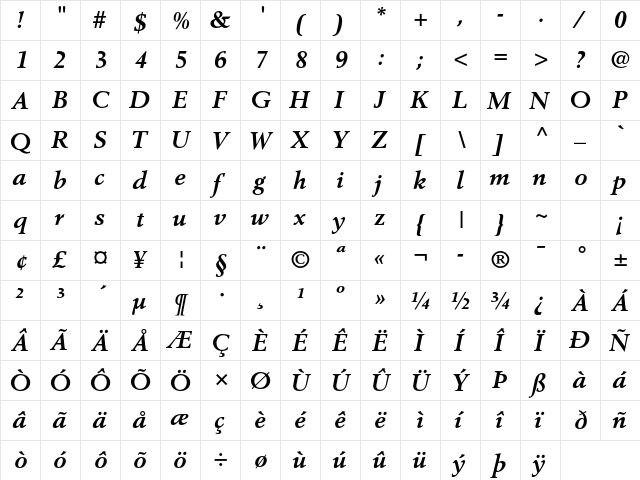
Berling LT Std Bold Italic
Bold Italic ·  Karl-Erik Forsberg ·
DesignerKarl-Erik Forsberg
Design Context for Berling LT Std Typeface
Berling LT Std offers clean, dependable letterforms without strong stylistic allegiance, making it a practical choice for designers who need flexibility. The dynamic lean of this cut emphasises speed and emphasis in any layout. Its bold stroke weight gives it real presence on the page.
Pro Tip: Use Berling LT Std for emphasis, pull quotes, and subheadings where its slanted energy can add rhythm to the layout.